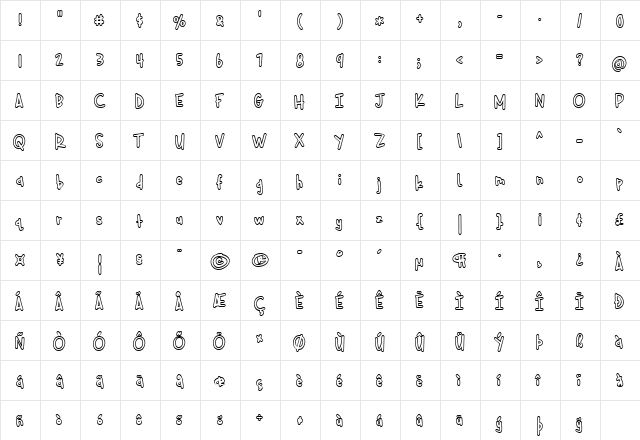
Cuddlebugs Outline Regular
| Foundry | Brittney Murphy |
| Designer | Brittney Murphy |
Design Context for Cuddlebugs Outline Typeface
Cuddlebugs Outline is built around its visual character rather than neutral utility — its distinctive forms are designed to make an impression at display sizes.
Font Pairing: Pair with a clean neutral sans-serif for body copy to let Cuddlebugs Outline's character lead without overwhelming the composition.
Pro Tip: Treat Cuddlebugs Outline as the centrepiece of your typographic hierarchy. One strong heading set in a decorative face can carry an entire layout.